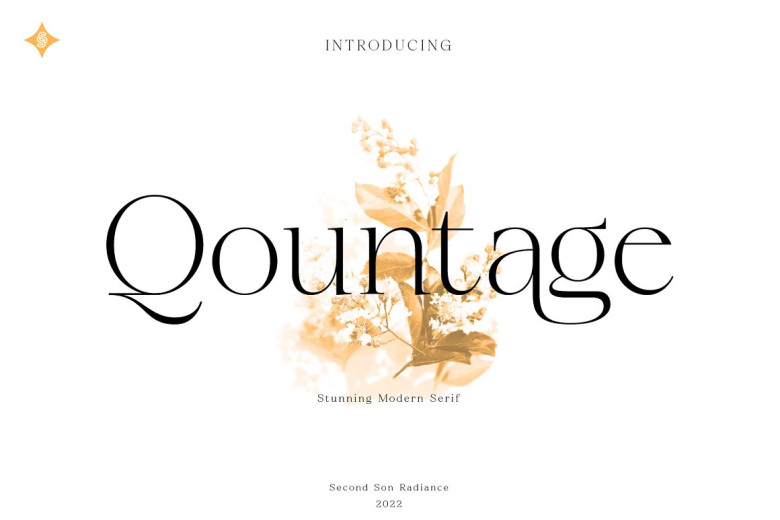
Qountage Font
Qountage is a Trendy, stunning & modern style serif font for your fancy projects. Elegant, fashion and classic style on Qountage font will be great for any branding project, chic designs and any beauty concepts. The beauty alternates and ligatures of Qountage will help you to create unique and original logo design.
Qountage Serif Font